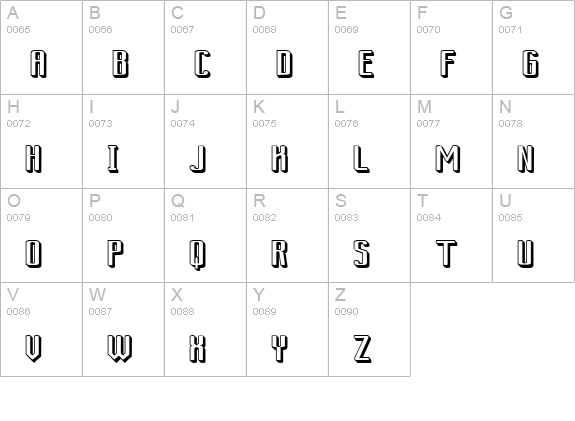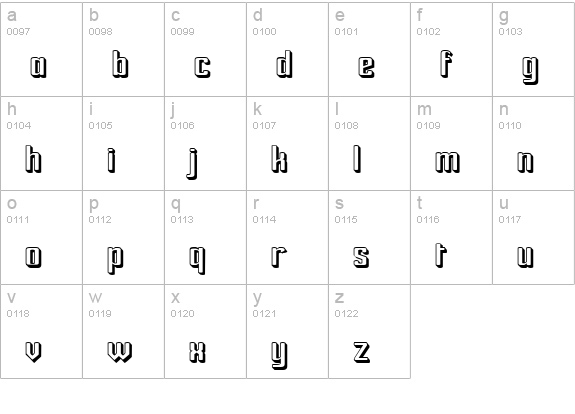
Ardour 3D GM Font Details
The Ardour 3D GM font is a stunning and versatile typeface that brings a touch of sophistication and modernity to your design projects. Its three-dimensional effect adds depth and style, making it perfect for a wide range of creative applications. This unique font is not only visually appealing but also highly readable, making it ideal for both headlines and body text. Whether you're working on a website, poster, or branding materials, the Ardour 3D GM font will elevate your designs to the next level. Best of all, this font is available for free download at FontsMarket.com, allowing you to easily access and incorporate it into your projects without any cost. Don't miss out on the opportunity to enhance your designs with the Ardour 3D GM font today!